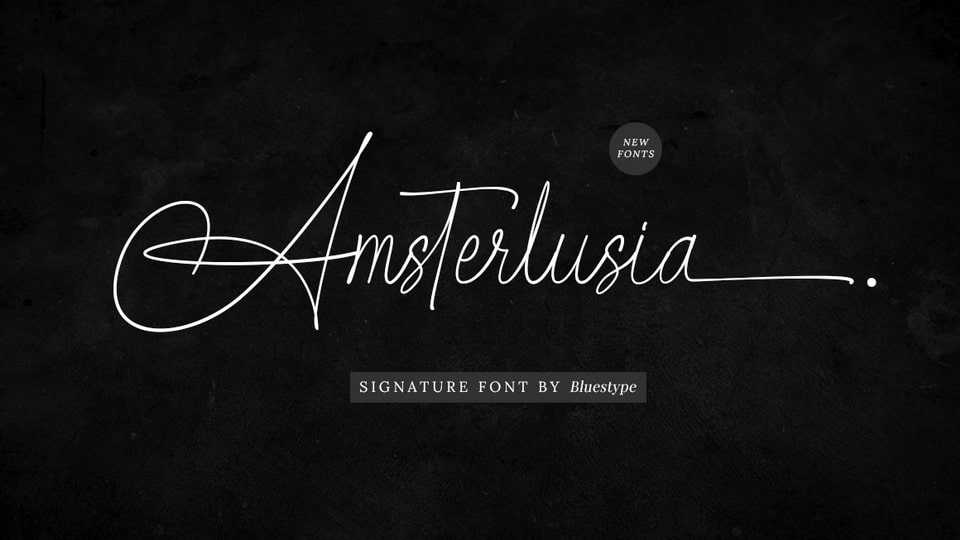
Download Amsterlusia font, a signature handwriting typeface that exudes elegance and charm. Step into a world of timeless elegance with Amsterlusia, the exquisite font.